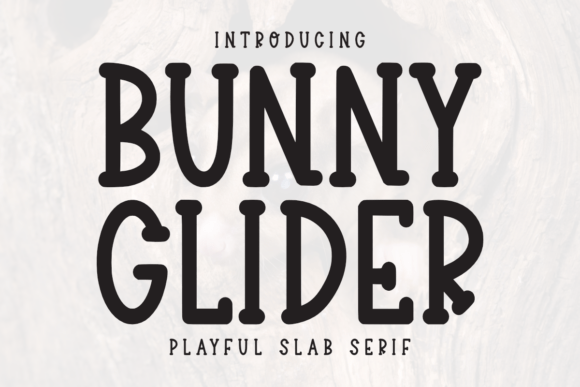
The Joyful World of Bunny Glider Font
Have you ever been in the middle of a design project, and suddenly, it feels like something’s missing? You’re not quite sure what it is, but you know it’s not quite right. I recall a recent experience where I was working on a children’s book layout, and my design just felt flat. The text was clear, but it lacked personality. That’s when I stumbled upon the Bunny Glider Font. With its quirky and cheerful vibe, it instantly brought my design to life!
First Impressions: A Review of Bunny Glider
Bunny Glider is a slab serif font that exudes energy and charm. Its playful proportions and chunky slab ends make it perfect for projects that need a dose of fun. Here’s what I love about it:
• ✨ Playful and cheerful: Bunny Glider has a unique ability to make your design feel more approachable and kid-friendly.
• ✅ Bold and eye-catching: This font is perfect for headlines, titles, and any design element that needs to stand out.
• 💡 Versatile: Bunny Glider can be used for a wide range of projects, from storybooks and children’s games to posters and more.
While Bunny Glider is an amazing font, it’s not without its quirks:
• 🤔 Limited use in formal contexts: Due to its playful nature, Bunny Glider might not be the best fit for formal or professional projects.
• ⚠️ Legibility at small sizes: Like many slab serif fonts, Bunny Glider can become less legible at very small sizes.
The Story Behind Bunny Glider
Bunny Glider was designed with one goal in mind: to bring joy and playfulness to design projects. Its creator, a passionate typographer, wanted to craft a font that would make designers smile. Inspired by childhood memories of reading storybooks and playing games, Bunny Glider was born.
Font Name Bunny Glider Font
Author Letterayu
What type of projects is Bunny Glider best suited for? Bunny Glider is perfect for kid-friendly projects, such as storybooks, children’s games, posters, and more.
Is Bunny Glider available in different weights or styles? Currently, Bunny Glider is available in a single weight, but its chunky slab ends and playful proportions make it versatile enough for various design applications.
Bunny Glider is more than just a font – it’s a design companion that can bring joy and playfulness to your projects. With its bold, eye-catching personality, it’s sure to make your design smile!